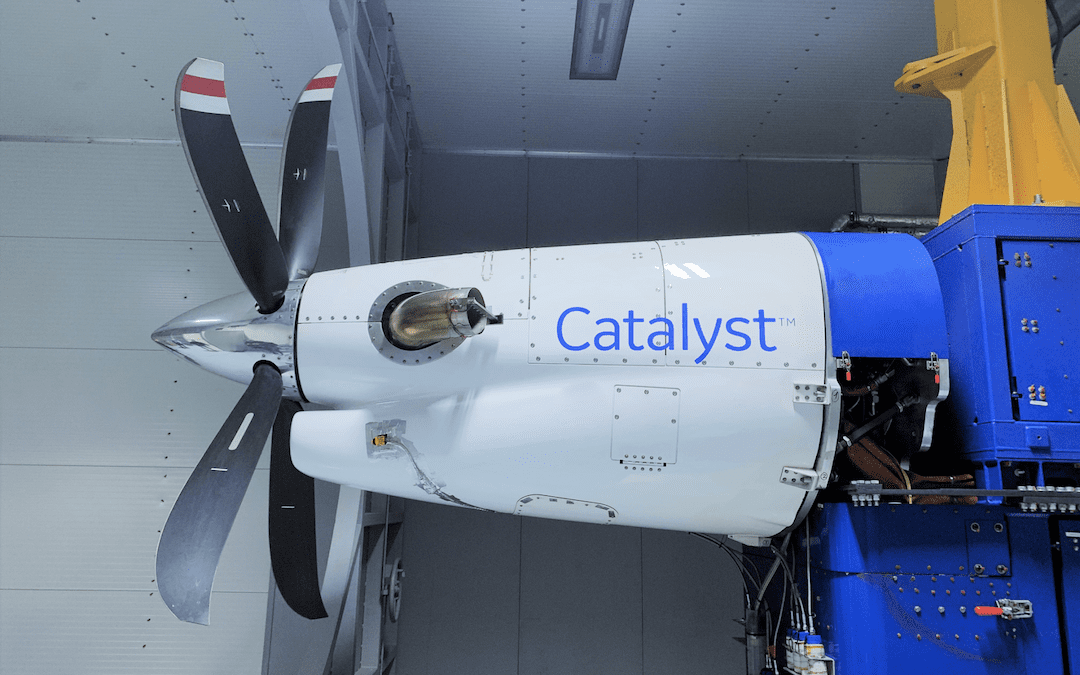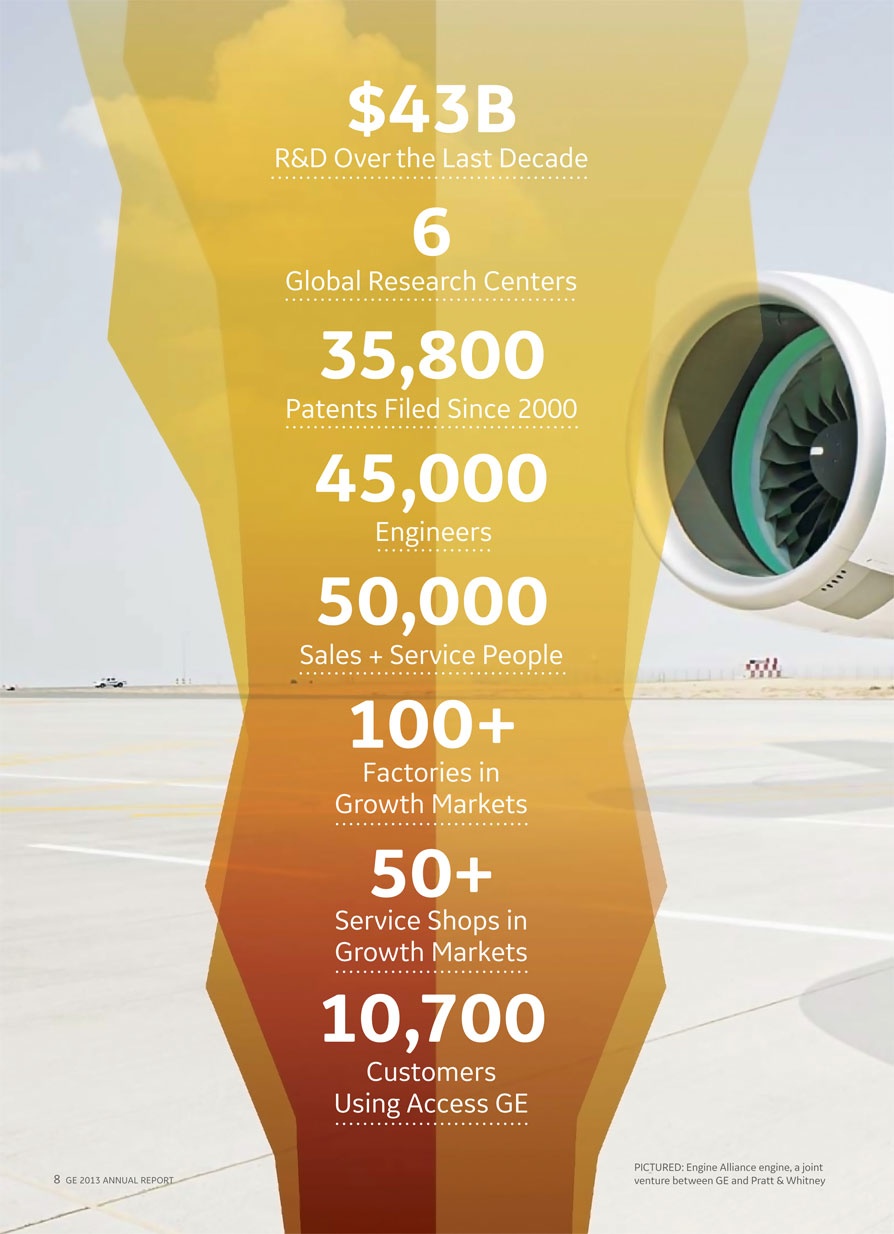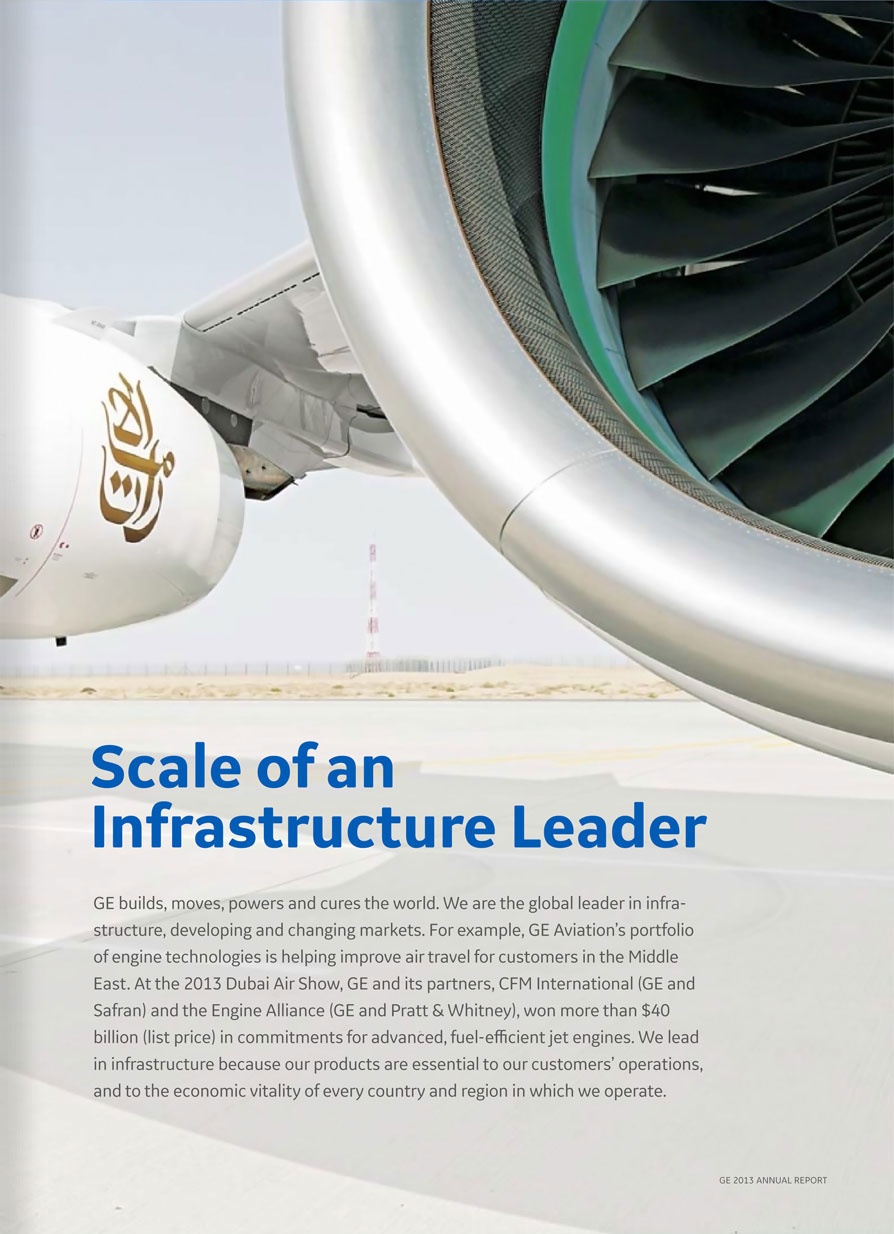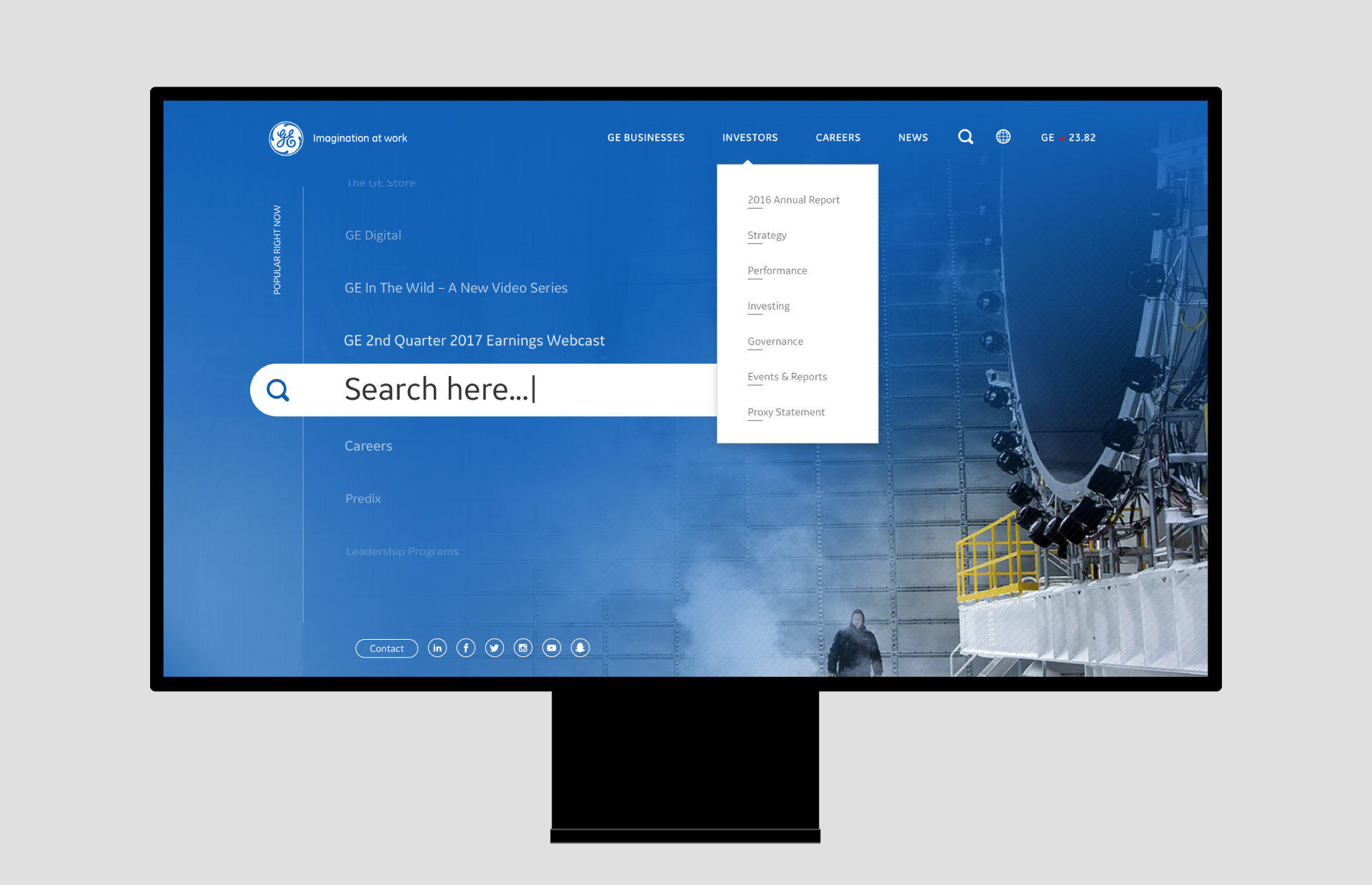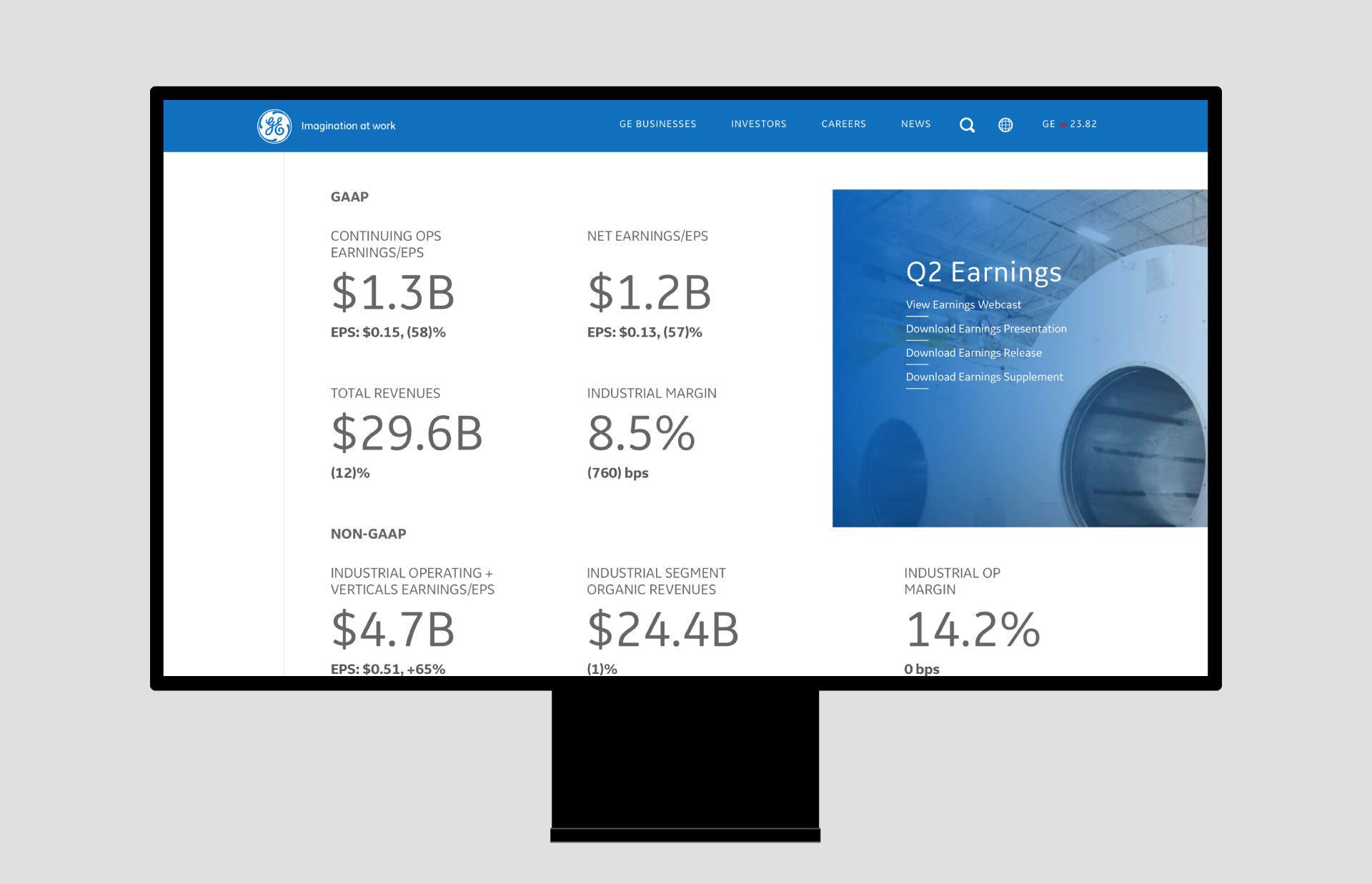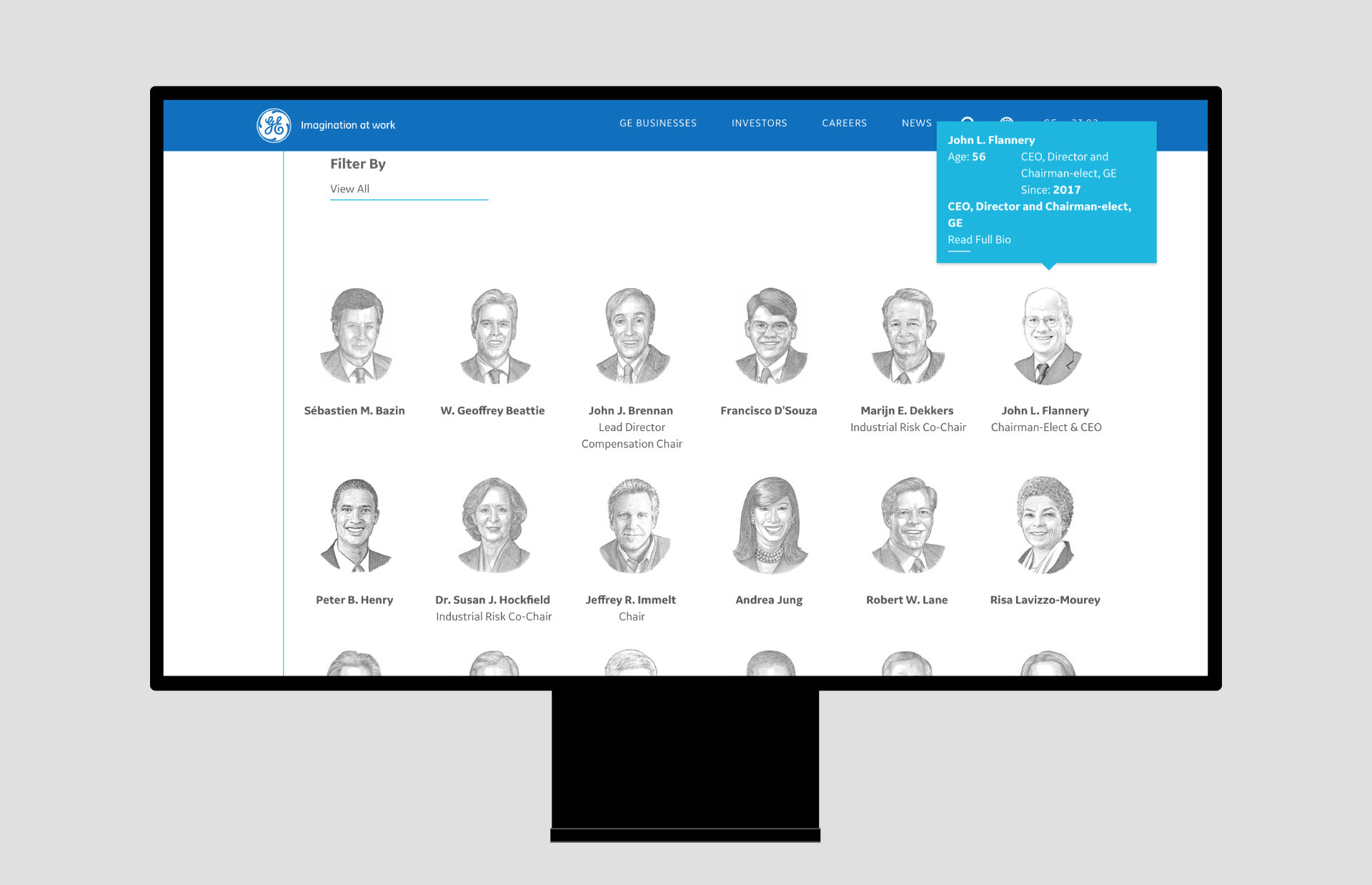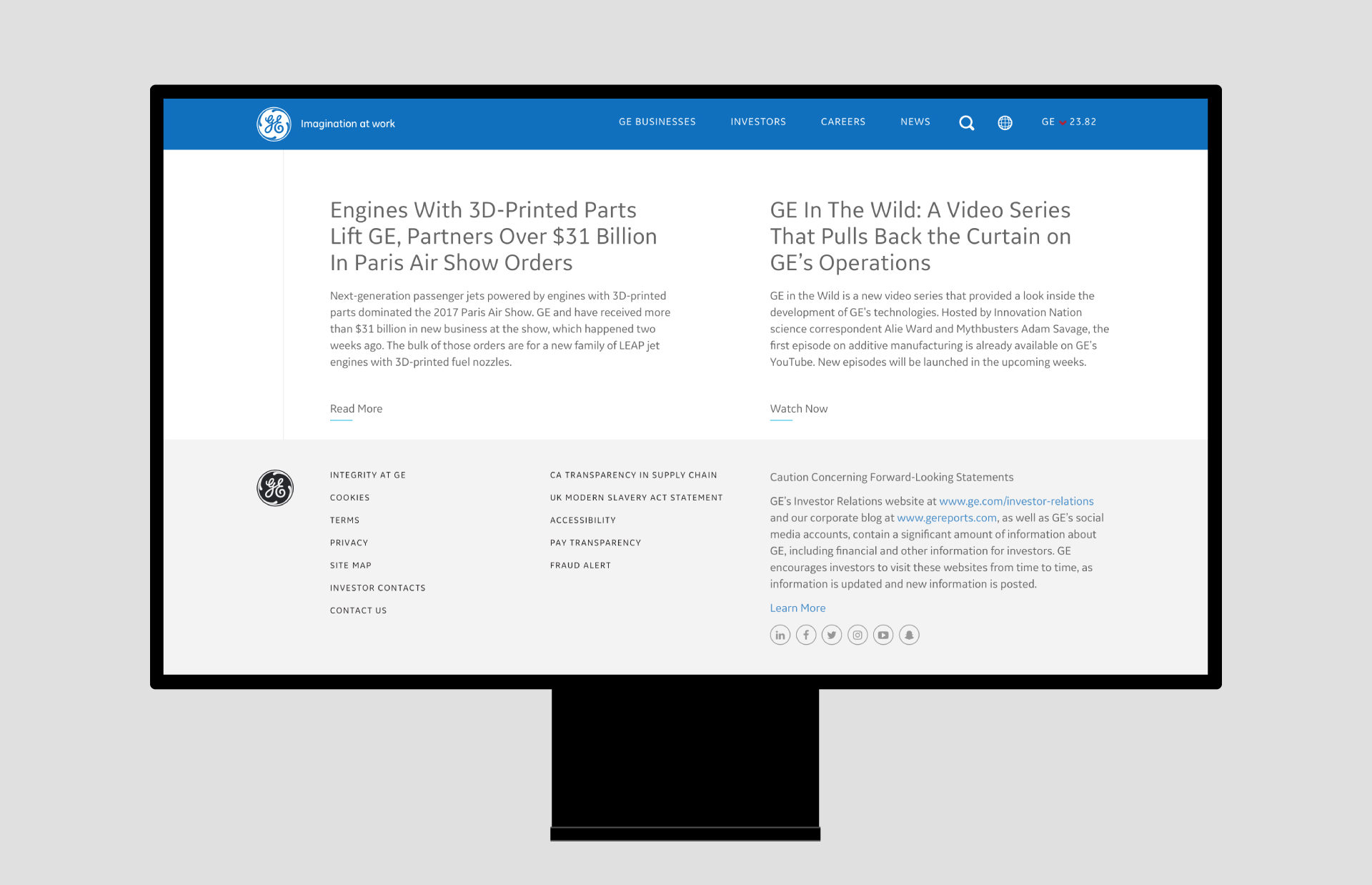
The sans-serif is a contemporary design with open apertures, subtle curved details, and slightly rounded corners and terminals. All four styles (Regular, Italic, Bold, Bold Italic) are optimized for use in the smallest sizes — e.g., in labels, listings, or tables — and clear rendering on low-resolution screens and designed in 2013.